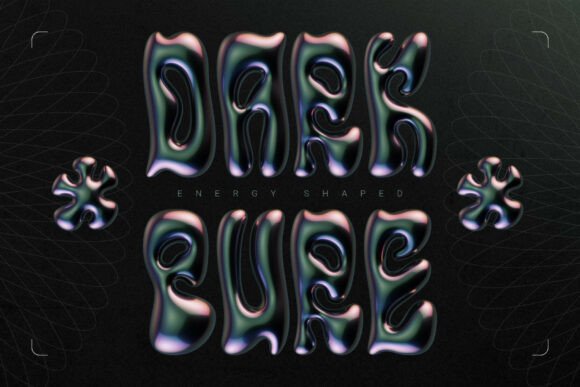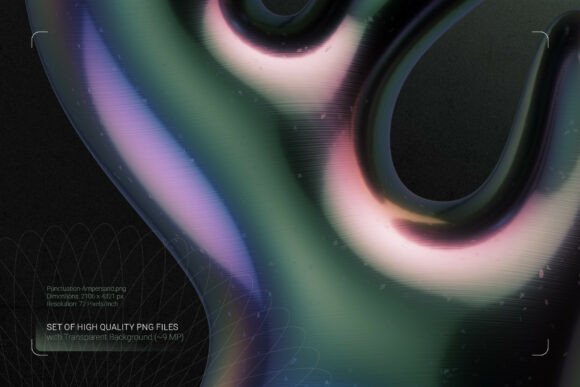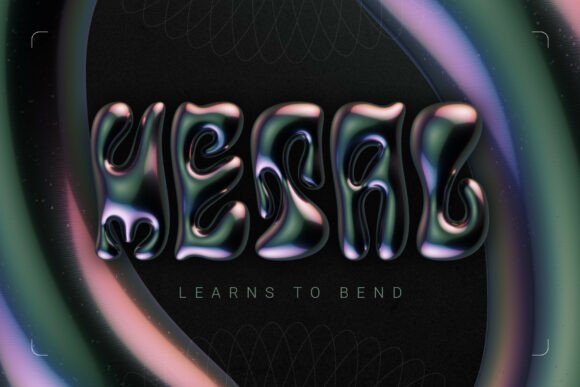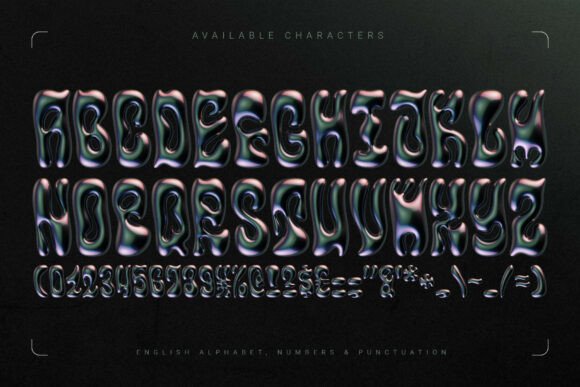
Introduction to Obsidian Flex Font
Imagine you’re working on a creative project, pouring your heart and soul into a design, and you’re searching for the perfect font to give it that extra oomph. You scroll through your design resources, and suddenly, you stumble upon the Obsidian Flex Font. Its smooth, 3D bitmap design and glossy, reflective surface instantly catch your eye, and you can’t help but wonder how it can elevate your design to the next level.
The Obsidian Flex Font is a high-quality, color bitmap OpenType-SVG font that’s perfect for designers looking to add a touch of sophistication and whimsy to their creative projects. With its vintage, groovy foundation and nicely inflated shape, this font is sure to make a statement. Plus, with high-resolution PNG files featuring a transparent background, you can rest assured that your design will look sharp and professional.
Key Features of Obsidian Flex Font
- High-quality design resource with a unique, modern aesthetic.
- Features a transparent background, making it easy to customize and combine with other design elements.
- Designed to be highly versatile, suitable for use in a variety of creative contexts, from branding and marketing materials to digital art and graphic design.
Honest Review: Obsidian Flex Font
As a designer, I’m always on the lookout for high-quality design resources that can elevate my creative projects. Recently, I had the chance to work with the Obsidian Flex Font, and I must say it’s a great addition to any design arsenal.
The Obsidian Flex Font is a versatile, high-quality font that features a transparent background, making it perfect for designers who want to add a touch of elegance to their designs. I love how it can be used in a variety of creative projects, from logos and branding materials to digital interfaces and print materials.
What works well with the Obsidian Flex Font:
- ✨ High-quality design: The font is crisp, clean, and well-designed.
- ✨ Versatility: It can be used in a wide range of creative projects.
- ⚠️ Limited font styles: While the font is well-designed, it’s limited to a few styles, which may not be ideal for designers who need a wide range of options.
- ⚠️ Not ideal for large text: The font can become difficult to read when used in large text sizes.
Overall, I’m impressed with the Obsidian Flex Font, and I think it’s a great addition to any designer’s toolkit. While it may have a few limitations, its high-quality design and versatility make it a valuable resource for any creative project.
Obsidian Flex Font
Tips and Best Practices
To get the most out of the Obsidian Flex Font, experiment with different sizes, colors, and layering techniques. Use the font in combination with other design elements to create a unique and eye-catching design.
The Obsidian Flex Font is ideal for various creative projects, including digital art, graphic design, and branding materials. Its high-quality appearance and transparent background make it a versatile design resource for any project.